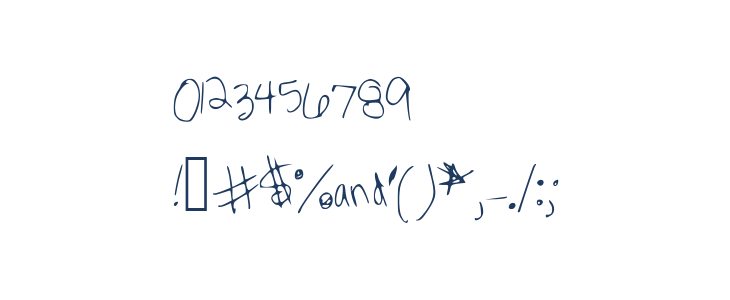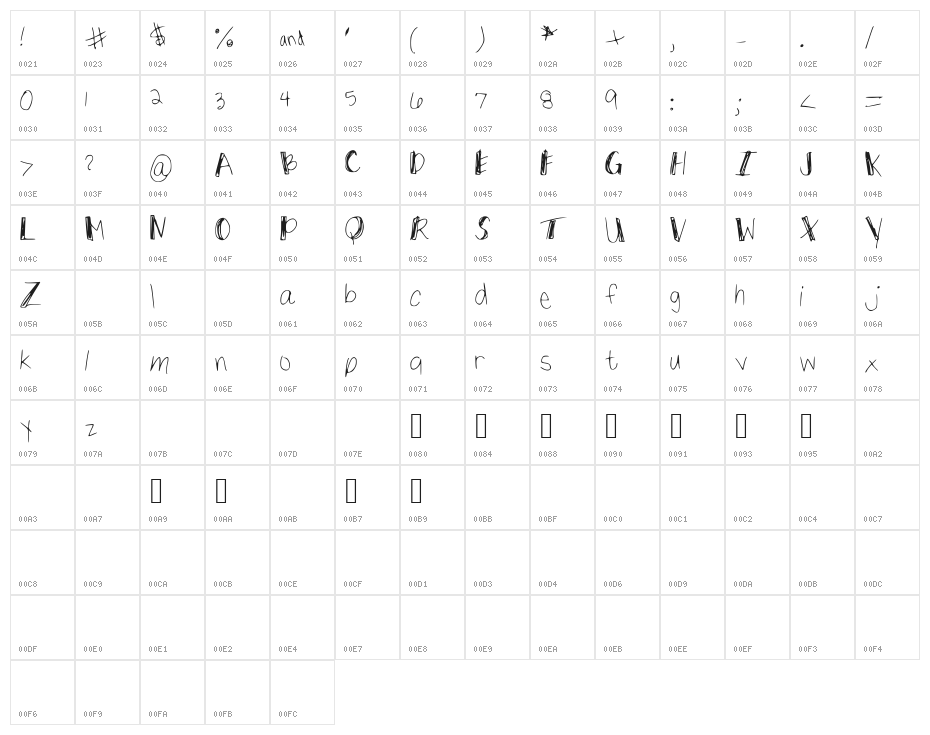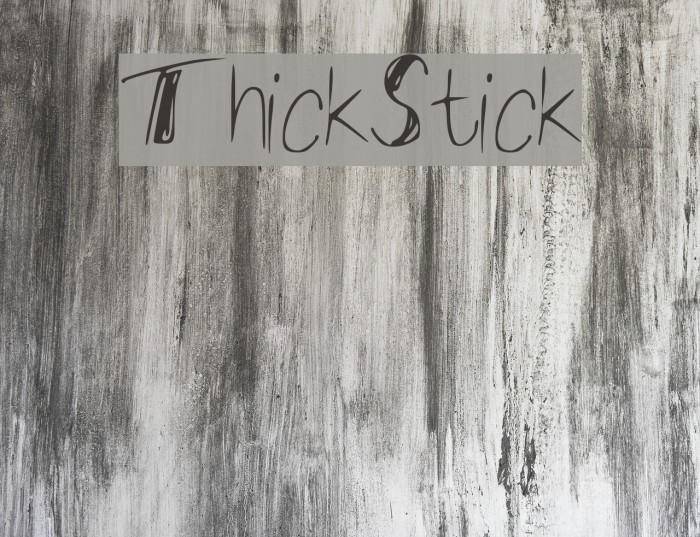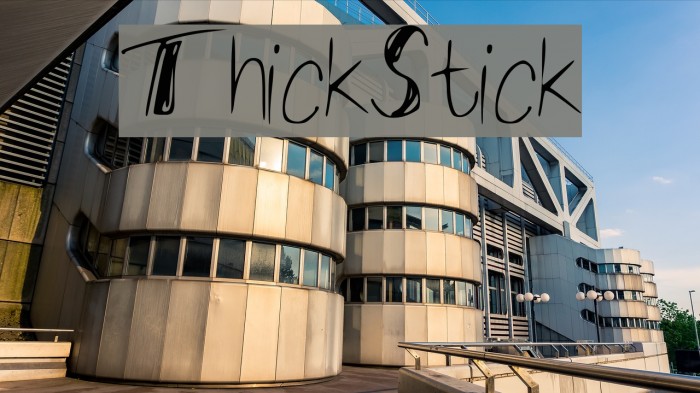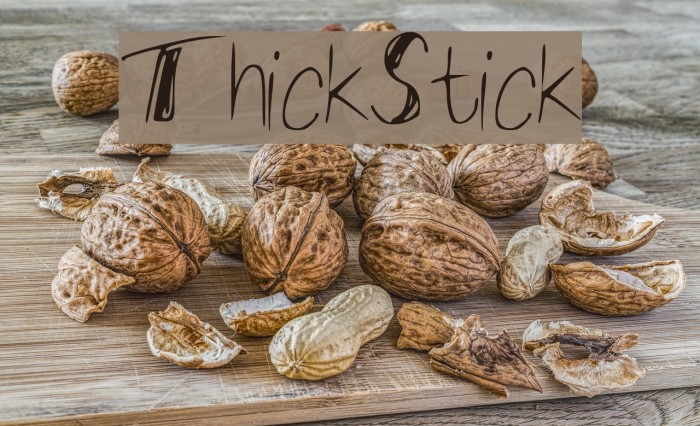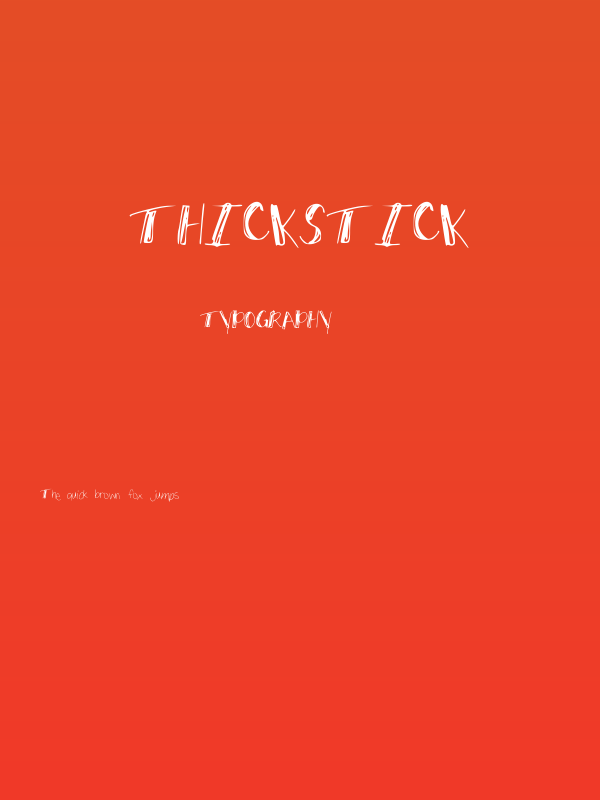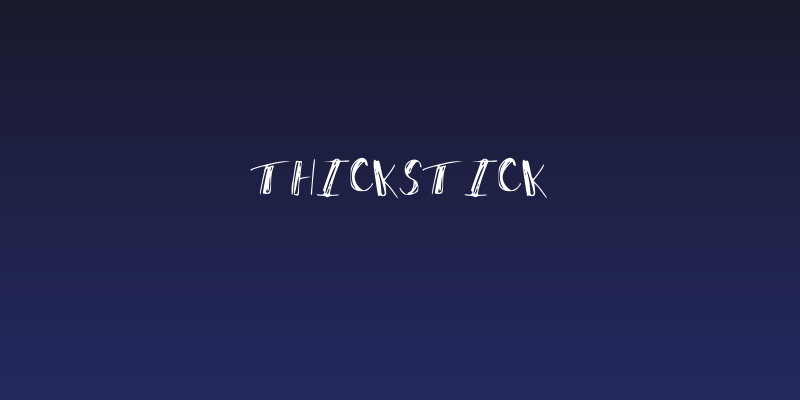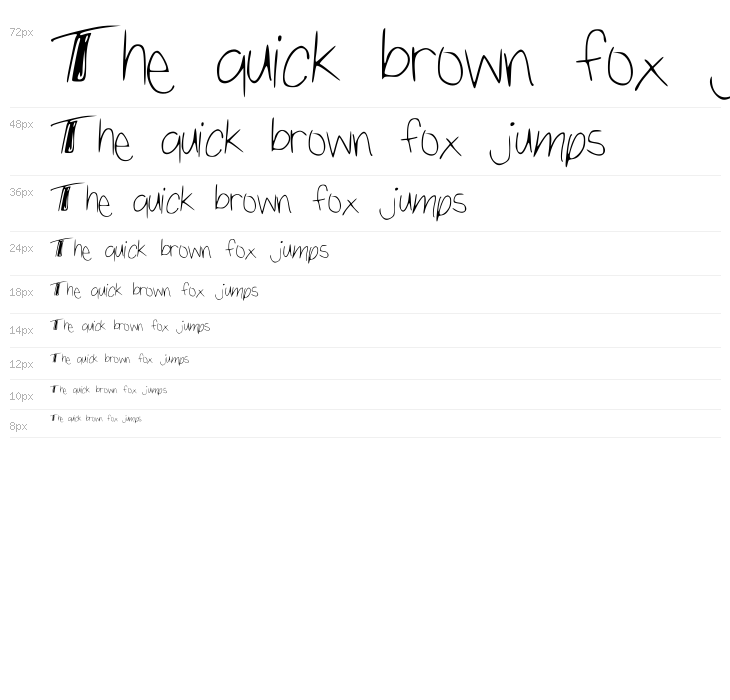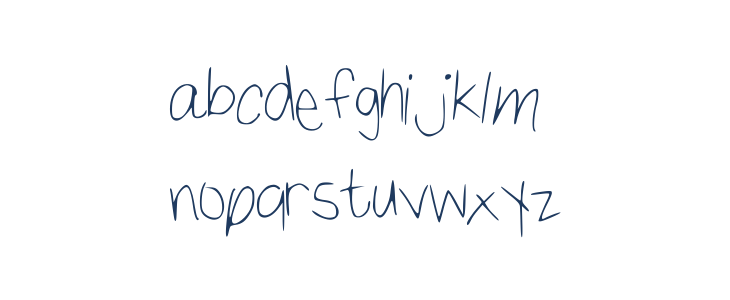
ThickStick Font
ThickStick Description
This font features a playful and whimsical style, characterized by its hand-drawn appearance and irregular line thickness. The uppercase letters are bold and dynamic, with a slightly chaotic feel, while the lowercase letters maintain a more consistent flow, adding to the font's quirky charm. The numerals and special characters continue this theme, offering a unique and artistic touch. The overall design is informal and expressive, making it ideal for creative projects that require a personal and artistic flair.
| Proposed Projects | Ideal for children's book covers, playful branding, creative posters, and artistic invitations. |